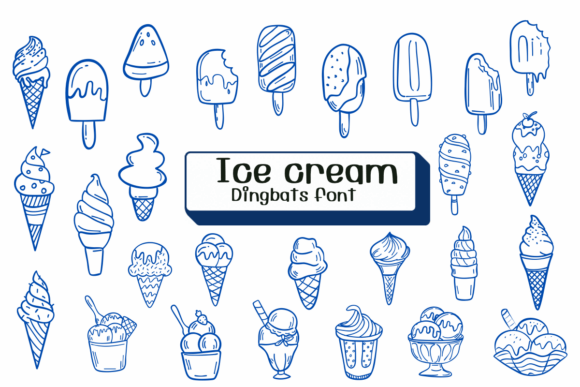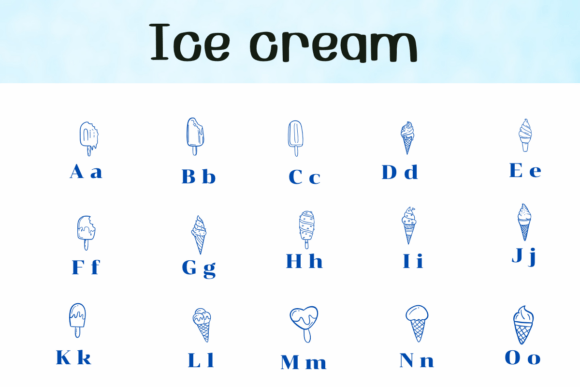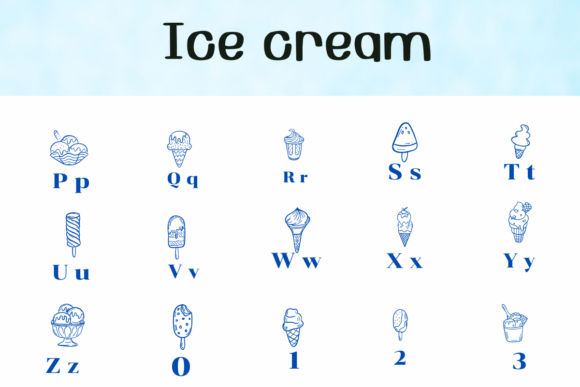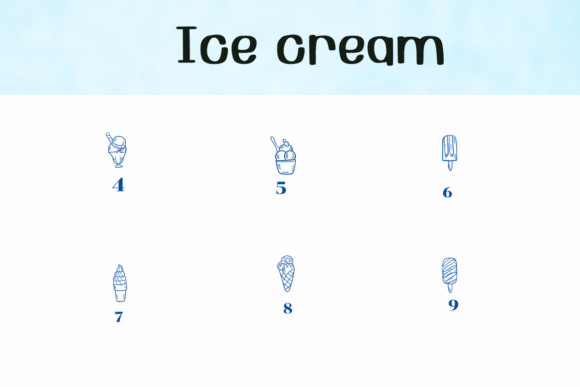
Ice Cream Font
About the Ice Cream Font
Experience the unique personality of Ice Cream Font, a font designed for impact. Ice cream is a dingbats font with a delicious theme. This font can enhance your creative projects such as wedding invitations, DIY, crafts, decorations, logos, and many other creative ideas.
Ice Cream Font’s playful, rounded forms are ideal for headlines, short text blocks on packaging, and branding elements where a light-hearted, approachable feel is desired. It works exceptionally well for children’s products, sweet treats, and projects emphasizing fun and whimsy. Avoid using it for body text or lengthy paragraphs; its low x-height and decorative nature compromise readability in extended use.
Pairing Ice Cream Font effectively depends on the desired contrast. For a balanced design, consider pairing it with a clean sans-serif like Open Sans for body text, or a slightly more playful script like Pacifico for secondary text elements. For a more sophisticated look, a geometric sans-serif such as Futura would create interesting visual tension.
The overall personality of Ice Cream Font is undeniably cheerful and friendly, making it a strong choice for brands focused on happiness and approachability. Its charm lies in its simplicity and delicate details, preventing it from becoming overwhelming even in playful applications.
Ice Cream Font Usage Examples
Ice Cream Font Example